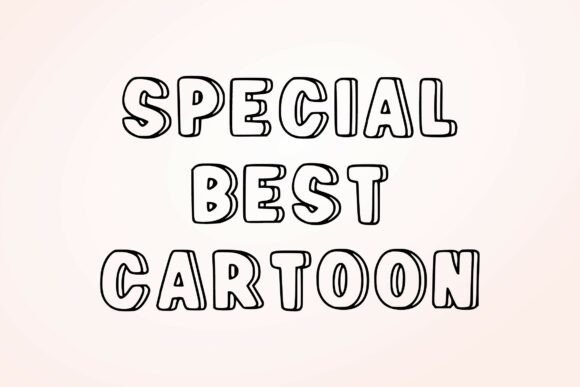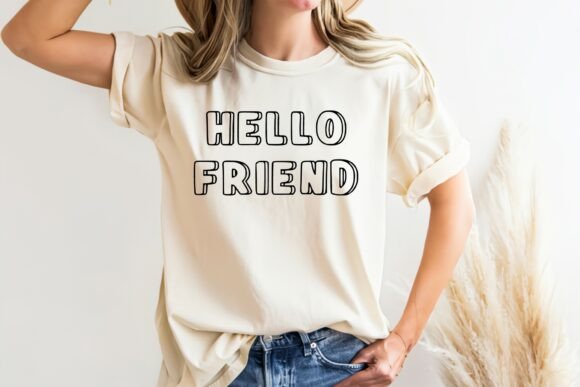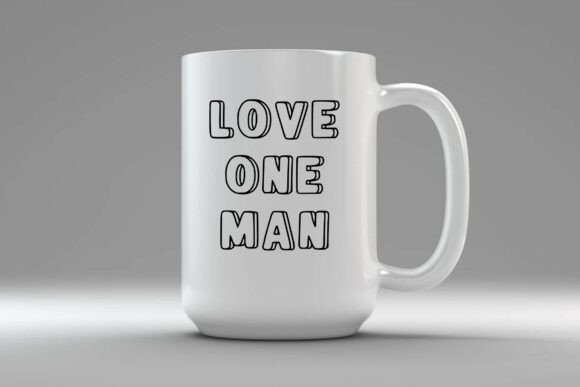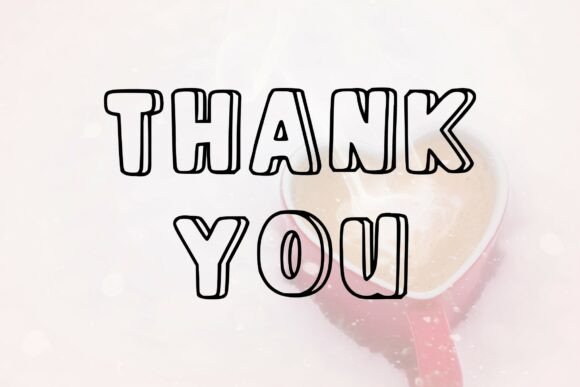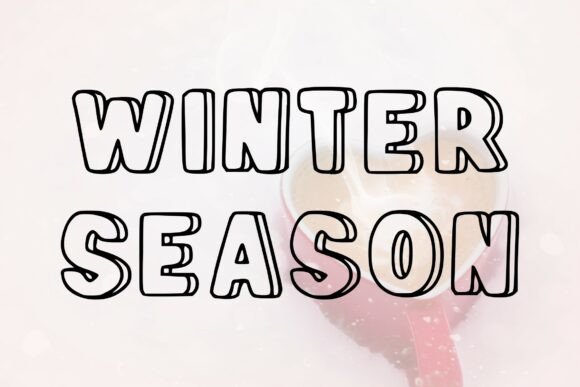
Introduction to Sketchdoodle Regular Font
Do you remember those carefree days as a kid, scribbling with crayons and markers, bringing your imagination to life? For designers, recreating that sense of joy and creativity in their work is a constant goal. One tool that can help achieve this is the Sketchdoodle Regular Font, a playful and whimsical typeface that’s perfect for adding a touch of personality to your projects.
With its bold, rounded structure and sketch-style outlines, the Sketchdoodle Regular Font is designed to evoke a sense of hand-drawn charm. Its subtle imperfections and 3D-like contour effect give it a unique, handmade aesthetic that’s sure to stand out in any design. Whether you’re working on a children’s book, educational material, or creative project, this font is an invaluable resource that can add a touch of magic to your work.
Key Features of Sketchdoodle Regular Font
- Unique Hand-Drawn Design: Sketchdoodle Regular Font features a distinctive, hand-drawn style perfect for creative projects that require a personal touch.
- Perfect for Creative Projects: With its unique design and high-quality vectors, this font is ideal for creative projects such as branding, advertising, and editorial design.
Honest Review: Sketchdoodle Regular Font
- What works well: ✨ The Sketchdoodle Regular Font has a unique, hand-drawn feel that adds a touch of personality to any design. It’s perfect for projects that require a more organic, free-spirited look.
- What works well: ✨ The font is also incredibly easy to use, even for designers who are new to typography. The transparent background makes it easy to layer and manipulate the font to get the desired effect.
One of the things I love about the Sketchdoodle Regular Font is its ability to be used in a variety of design contexts. From branding and marketing materials to digital products and print materials, this font is a great addition to any design resource.
Overall, I’m really impressed with the Sketchdoodle Regular Font. It’s a high-quality, free resource that can elevate any creative project. My only suggestion would be to be mindful of the font’s limitations in certain design contexts ⚠️, but overall, I would highly recommend it to anyone looking for a unique and versatile font.
Sketchdoodle Regular Font is commonly used in creative projects, such as logos, branding materials, and marketing materials. Its clean and modern design makes it perfect for a wide range of design applications.